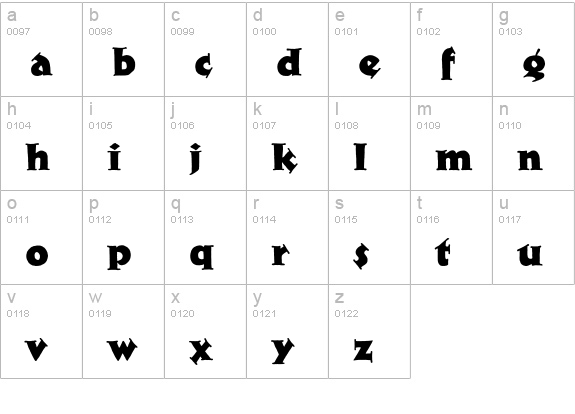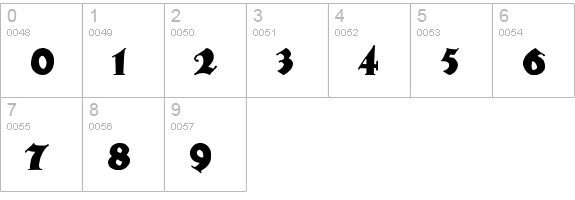
Xylo Std Font Details
Xylo Std font is a modern and stylish typeface that exudes sophistication and elegance. With its clean lines and sharp edges, this font is perfect for a wide range of design projects, from branding to editorial design. What sets Xylo Std font apart is not only its sleek appearance but also the fact that it is available for free download at FontsMarket.com, making it accessible to designers and creatives everywhere. Its versatility and timeless appeal make it a go-to choice for those looking to elevate their designs with a touch of class and sophistication. Whether you're working on a logo, website, or print materials, Xylo Std font is sure to make a statement and leave a lasting impression. Don't miss out on the opportunity to enhance your projects with this stunning font, available for free at FontsMarket.com.